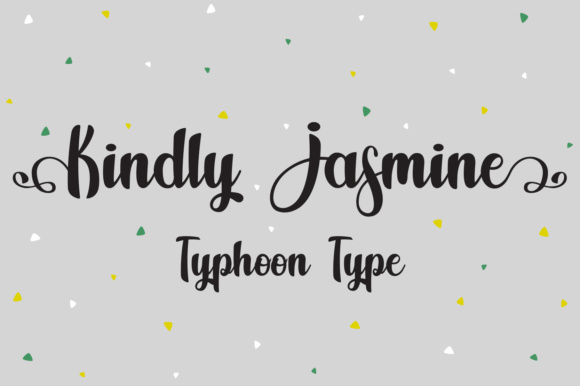
Kindly Jasmine Font
About Kindly Jasmine Font
Kindly Jasmine is a decorative script that can be used for clothing & apparel, small business and personal designs, magazines, product packaging and much more.